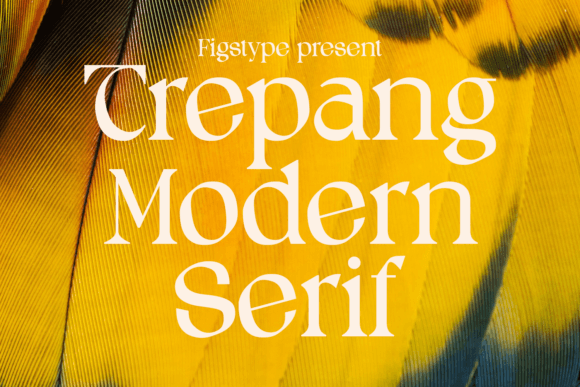
Welcome to the realm of visual enchantment, where words and aesthetics dance in harmony to create a captivating digital experience. We proudly present the Trepang Font, a serif masterpiece that captures the essence of modern elegance and artistry. Step into a realm of visual storytelling, where your designs will take center stage and leave an unforgettable impression.
Trepang Font: A Timeless Symphony of Style and Functionality
Crafted by the visionary minds at Figstype, Trepang Font is more than just a font; it's an artistic expression that transcends the boundaries of ordinary typography. Its graceful curves and delicate serifs evoke a sense of sophistication and timeless allure, while its contemporary twist infuses your creations with a touch of modernity.
Immerse yourself in the endless possibilities that await you with Trepang Font. Its versatile nature makes it the perfect choice for a diverse range of design endeavors. From eye-catching logos that demand attention to captivating social media posts that captivate your audience, Trepang Font will elevate your visual identity to new heights.
Unlock the Power of Communication and Expression
With Trepang Font, your words will not just be read; they will be experienced. Its legibility and artistic flair ensure that your message will not only be understood but also deeply felt. Craft headlines that resonate, design brochures that inform and inspire, and create websites that leave a lasting impression.
In a world flooded with visual noise, Trepang Font stands out as a beacon of clarity and distinction. Its ability to strike the perfect balance between sophistication and modernity makes it the ideal choice for businesses, creatives, and individuals seeking to make a lasting impact.
Don't settle for ordinary fonts that blend into the background. Embrace the artistic brilliance of Trepang Font and watch as your designs transform into captivating masterpieces. Unleash your creativity and let Trepang Font guide you to a world of visual excellence.